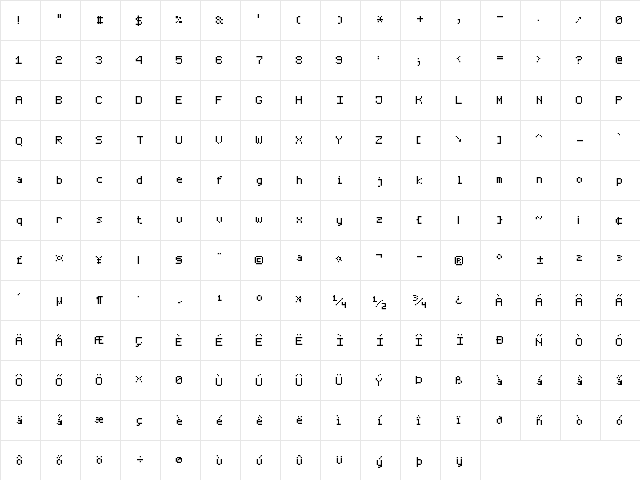
Thin Pixe-l7 Regular
| Foundry | Style-7 |
| Designer | Sizenko Alexander |
Design Context for Thin Pixe-l7 Typeface
Thin Pixe-l7 is a composed and adaptable typeface that performs quietly and consistently across a wide range of design contexts. Its slender proportions lend an understated elegance to any composition.